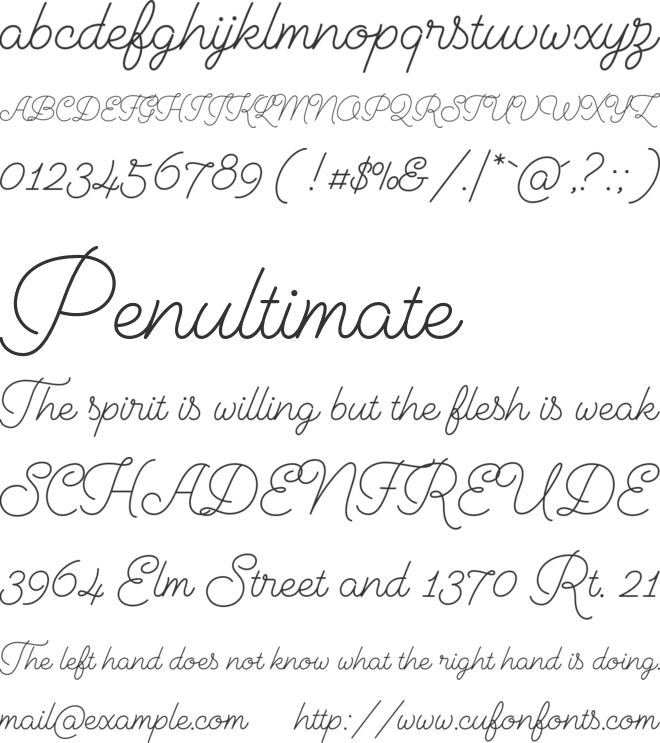
Cosmopolitan Script Font
Cosmopolitan is a monoline font family with script and sans versions that both work great together or alone. It comes with five weights and “printed” versions. For extra swashes, swirls and pictograms there is Cosmopolitan Extras.
Cosmopolitan Script is packed with OpenType alternates: turn on Swash, Stylistic or Titling Alternates in any OpenType savvy program or find even more alternates from the Glyph Palette. Cosmopolitan Sans has different Swash Alternates for both upper and lowercase characters.
Cosmopolitan Family is inspired by two other great monoline font families: Selfie and Beloved.